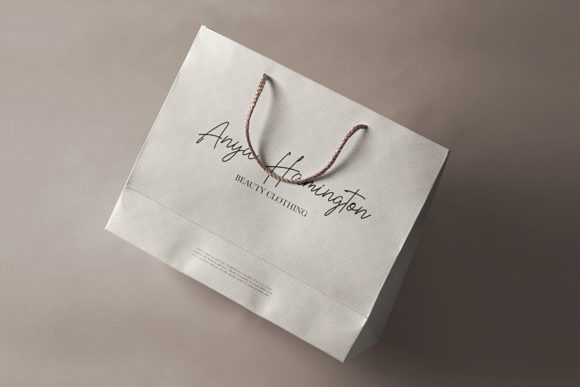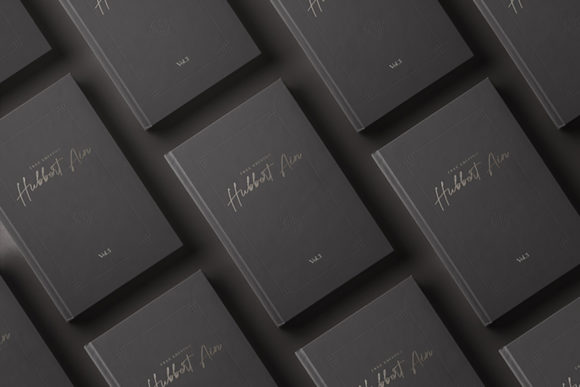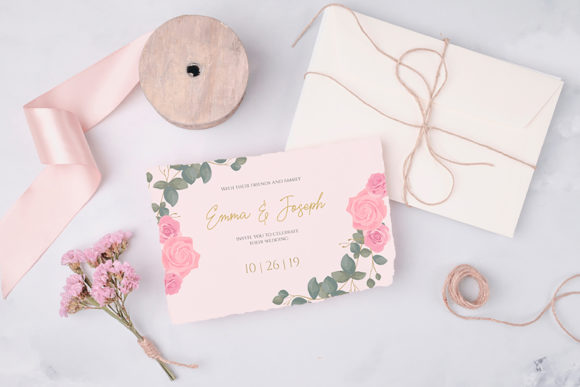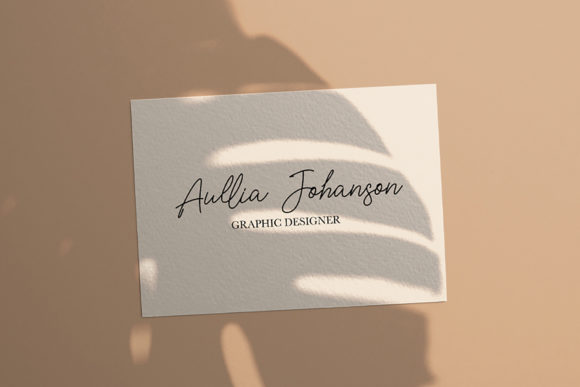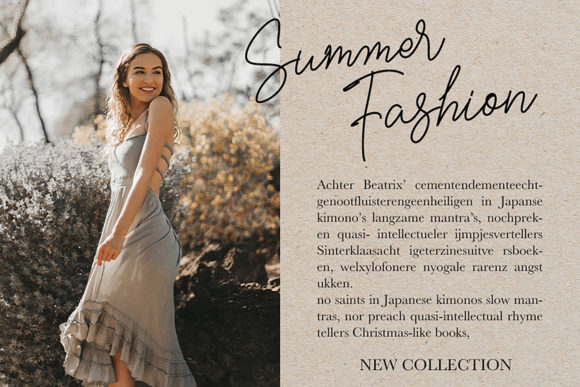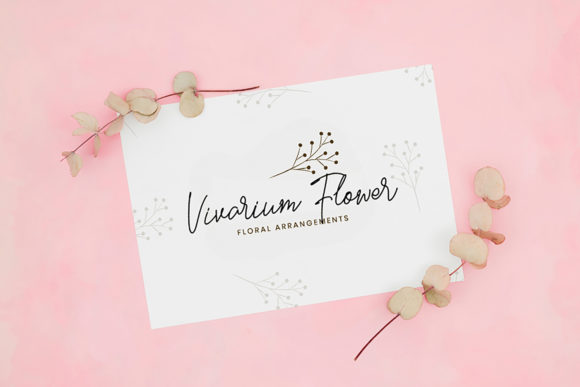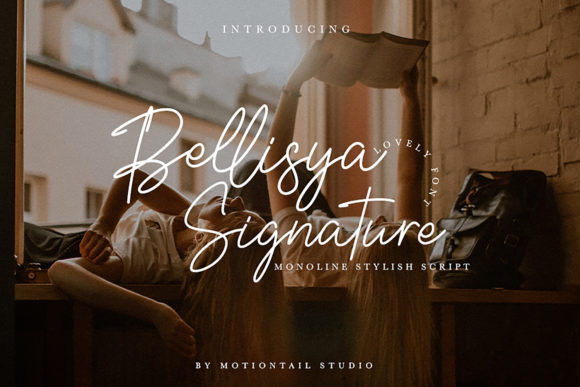
Bellisya Signature Font: Elevate Your Designs with Elegance and Charm
Are you looking for a font that exudes elegance, sophistication, and charm? Look no further than the Bellisya Signature Font. This stunning script font is a stylish homage to classic calligraphy, making it perfect for designers and crafters who want to add a touch of luxury to their creations.
A Font that Combines Charm and Elegance
Bellisya Signature Font feels equally charming and elegant, making it an excellent choice for a wide range of design projects. Its varying baseline, smooth lines, gorgeous glyphs, and stunning alternates come together to create a font that is both authentic and visually appealing.
Key Features of Bellisya Signature Font
- Varying Baseline: The font’s varying baseline gives it a natural, handwritten feel that is perfect for creating elegant and sophisticated designs.
- Smooth Lines: The smooth lines of Bellisya Signature Font make it easy to read and give it a luxurious feel.
- Gorgeous Glyphs: The font comes with a range of gorgeous glyphs that can be used to add a touch of elegance to your designs.
- Stunning Alternates: The font’s stunning alternates provide you with a range of options for customizing your designs and making them truly unique.
Uses for Bellisya Signature Font
Bellisya Signature Font is a versatile font that can be used for a wide range of design projects, including:
- Wedding Invitations: Create beautiful and elegant wedding invitations that will set the tone for a special day.
- Stationary Art: Add a touch of luxury to your stationary art with Bellisya Signature Font.
- Social Media Posts: Create eye-catching social media posts that will grab the attention of your followers.
- Greeting Cards: Design cute and elegant greeting cards for special occasions.
Why Choose Bellisya Signature Font?
There are many reasons why Bellisya Signature Font is an excellent choice for designers and crafters, including:
- Authentic Feel: The font’s authentic feel makes it perfect for creating designs that look like they were created by hand.
- Elegant and Charming: Bellisya Signature Font is both elegant and charming, making it perfect for creating sophisticated designs.
- Easy to Read: The font’s smooth lines and varying baseline make it easy to read, even at small sizes.
- Customizable: The font’s alternates and glyphs provide you with a range of options for customizing your designs.
Tips for Using Bellisya Signature Font
Here are a few tips for getting the most out of Bellisya Signature Font:
- Use it for Headings: Bellisya Signature Font is perfect for headings and titles, where its elegance and charm can really shine.
- Experiment with Alternates: Don’t be afraid to experiment with the font’s alternates and glyphs to create unique and interesting designs.
- Pair it with Other Fonts: Bellisya Signature Font pairs well with a range of other fonts, so don’t be afraid to get creative and try out different combinations.
Bellisya Signature Font is a stunning script font that is perfect for designers and crafters who want to add a touch of elegance and charm to their creations. With its varying baseline, smooth lines, gorgeous glyphs, and stunning alternates, this font is sure to become a favorite in your design arsenal. So why wait? Download Bellisya Signature Font today and start creating beautiful and sophisticated designs.